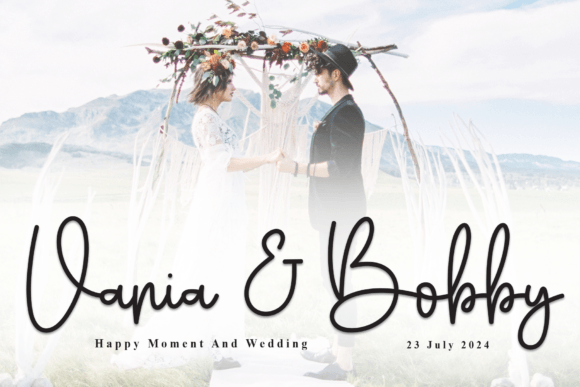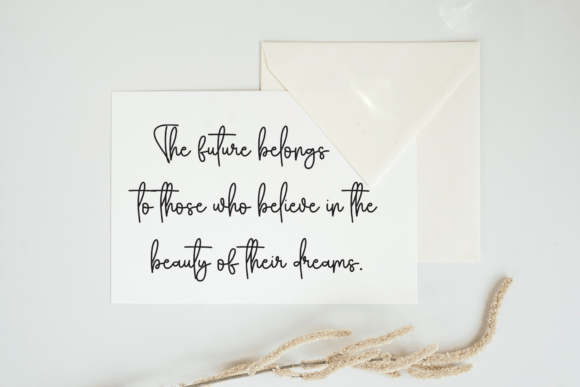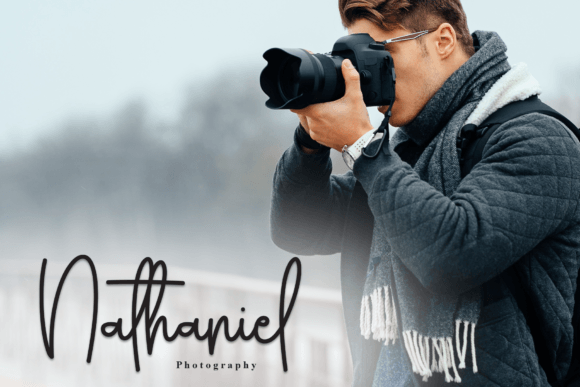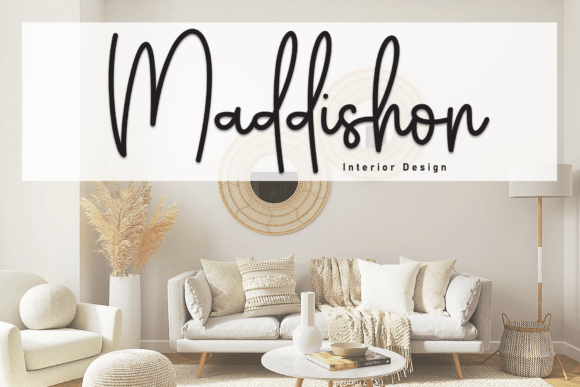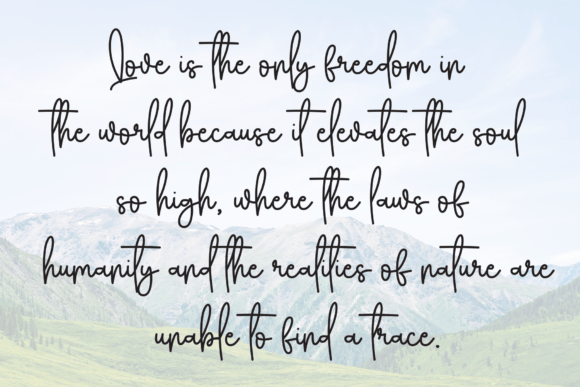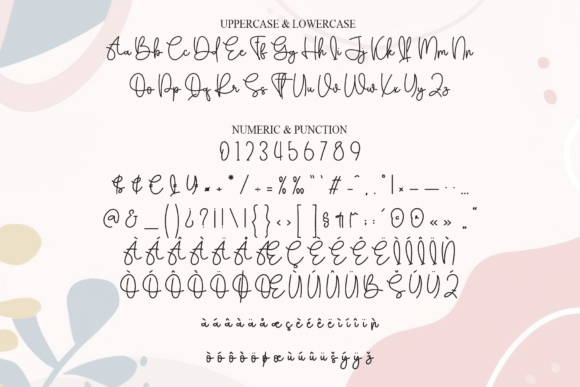
The Perfect Touch of Whimsy: Introducing Cute Ornament Font
Have you ever stumbled upon the perfect font while brainstorming ideas for a creative project, only to find yourself completely smitten and unable to focus on anything else? This is exactly what happened to me when I discovered Cute Ornament Font – a casual handwritten font that embodies the carefree spirit of handwritten notes and doodles.
Cute Ornament Font is more than just a font; it’s a way to add a personal touch to your designs. Whether you’re working on a personal project, creating social media graphics, or designing invitations, this font is sure to bring a warm and authentic feel to your work. Its effortless style is perfect for adding a touch of whimsy and charm to any design, making it a valuable addition to any designer’s toolkit.
Cute Ornament Font Key Features
- Font Styles: The Cute Ornament Font offers a range of font styles, including regular, bold, italic, and bold-italic, to provide versatility in design applications.
- Character Count: The font includes a comprehensive character set, covering a wide range of languages and characters, with over 200 characters in each font style.
- Unique Characteristics: Features intricate ornamentation, decorative flourishes, and playful details, making it ideal for creating whimsical and festive designs.
Cute Ornament Font Review
Cute Ornament Font is a lovely, playful font that can add a touch of whimsy to your designs. Here are some of its strengths:
- ✨ Unique and quirky design that can help your project stand out
- ✨ Good for use in illustrations, graphics, and other creative projects where a fun, casual vibe is desired
- ✨ The font’s ornamentation adds a layer of visual interest, making it perfect for titles, headings, and other emphasis points
- ⚠️ Limited character set, which may make it less suitable for long blocks of text or formal documents
- ⚠️ Some letters may be difficult to read at small font sizes, which could impact readability and accessibility
- ⚠️ The font’s ornamentation can be overwhelming or distracting if used too liberally, so it’s essential to use restraint and balance
Overall, Cute Ornament Font is a great addition to any designer’s toolkit, but it’s essential to use it judiciously and consider its limitations. With careful application, it can add a delightful touch to your designs and help them stand out from the crowd.
Cute Ornament Font is ideal for:
Children’s party invitations and decorations
Wedding stationery and favors
Baby shower invitations and decorations
Playful social media graphics and posts
Whimsical website headers and footers